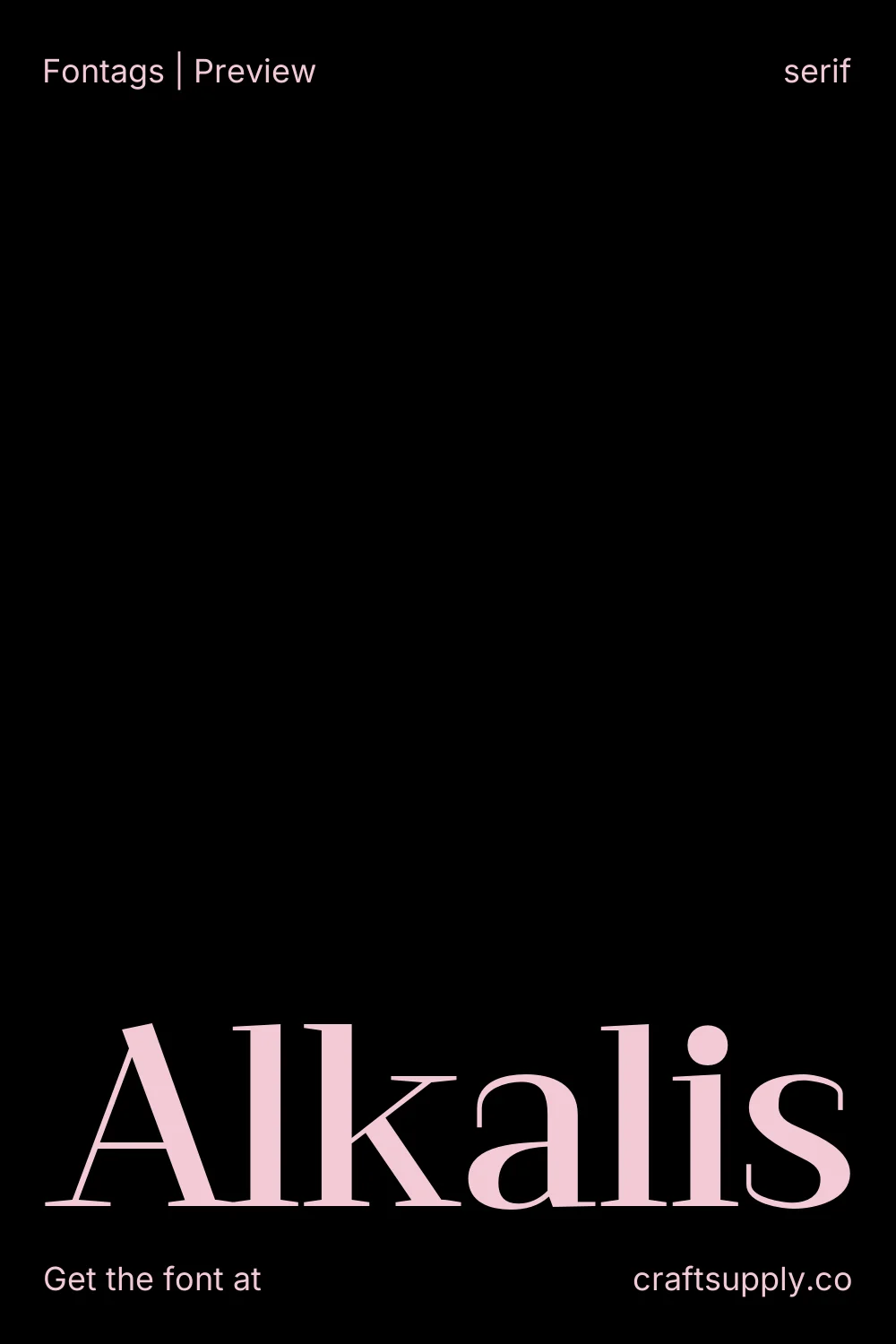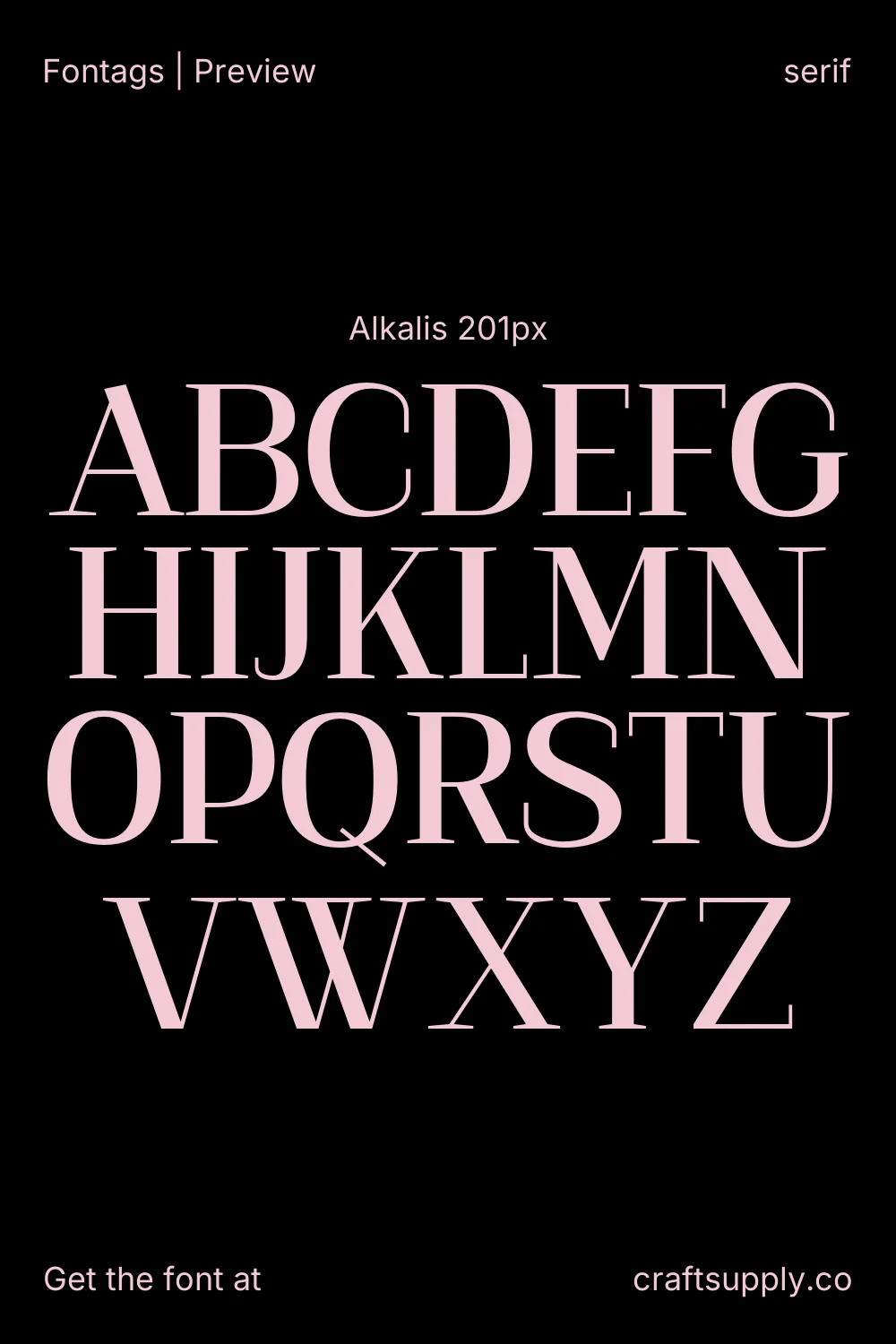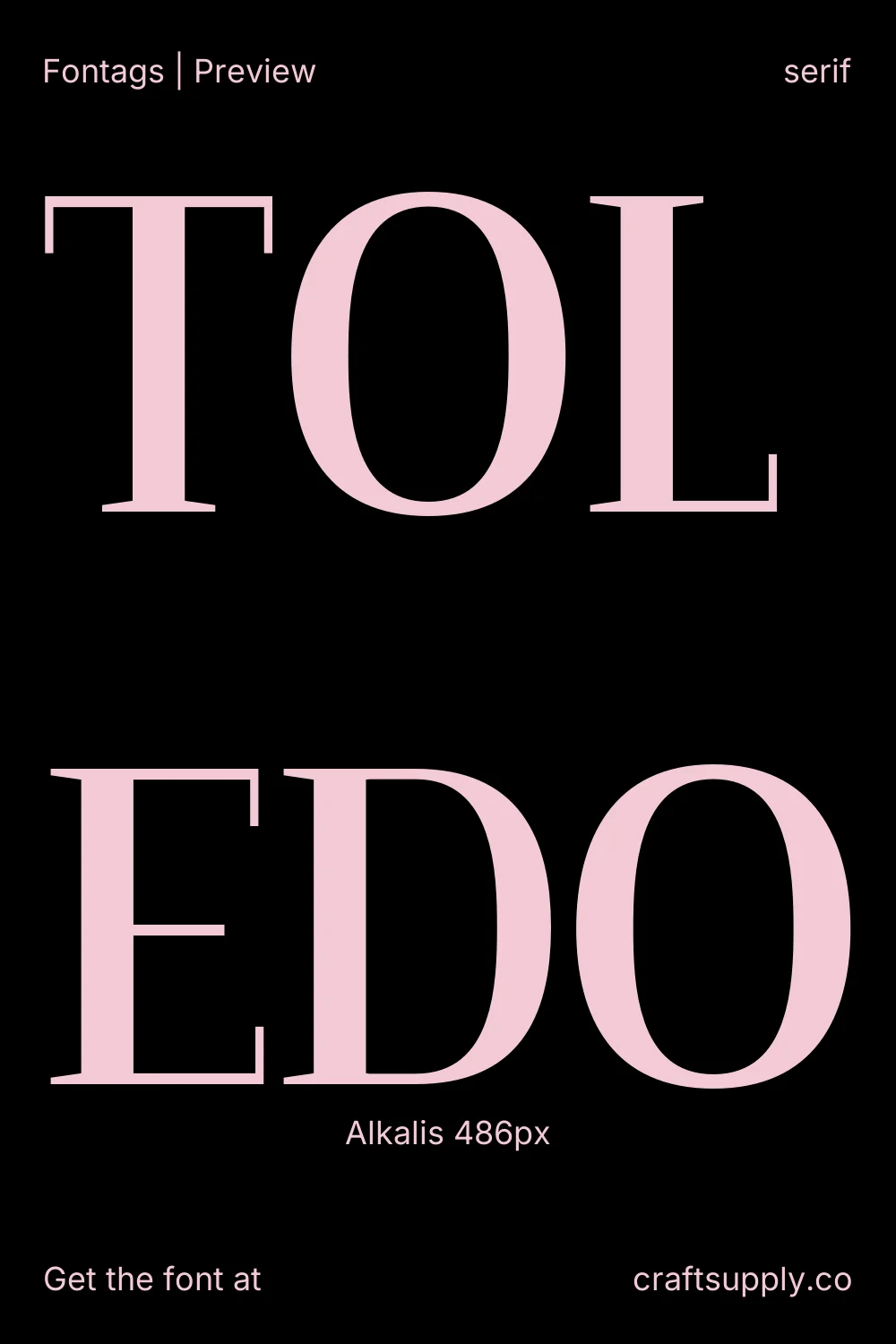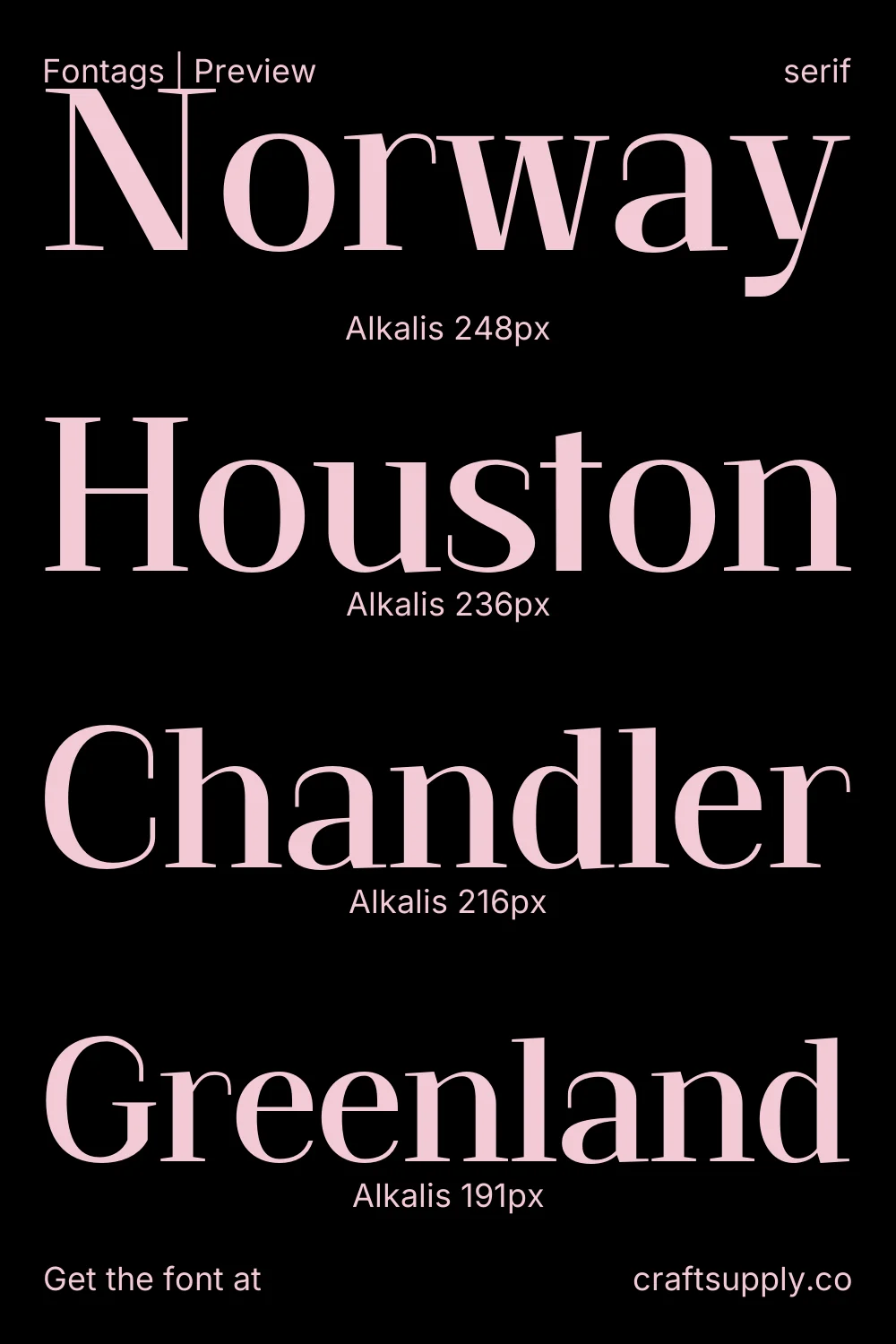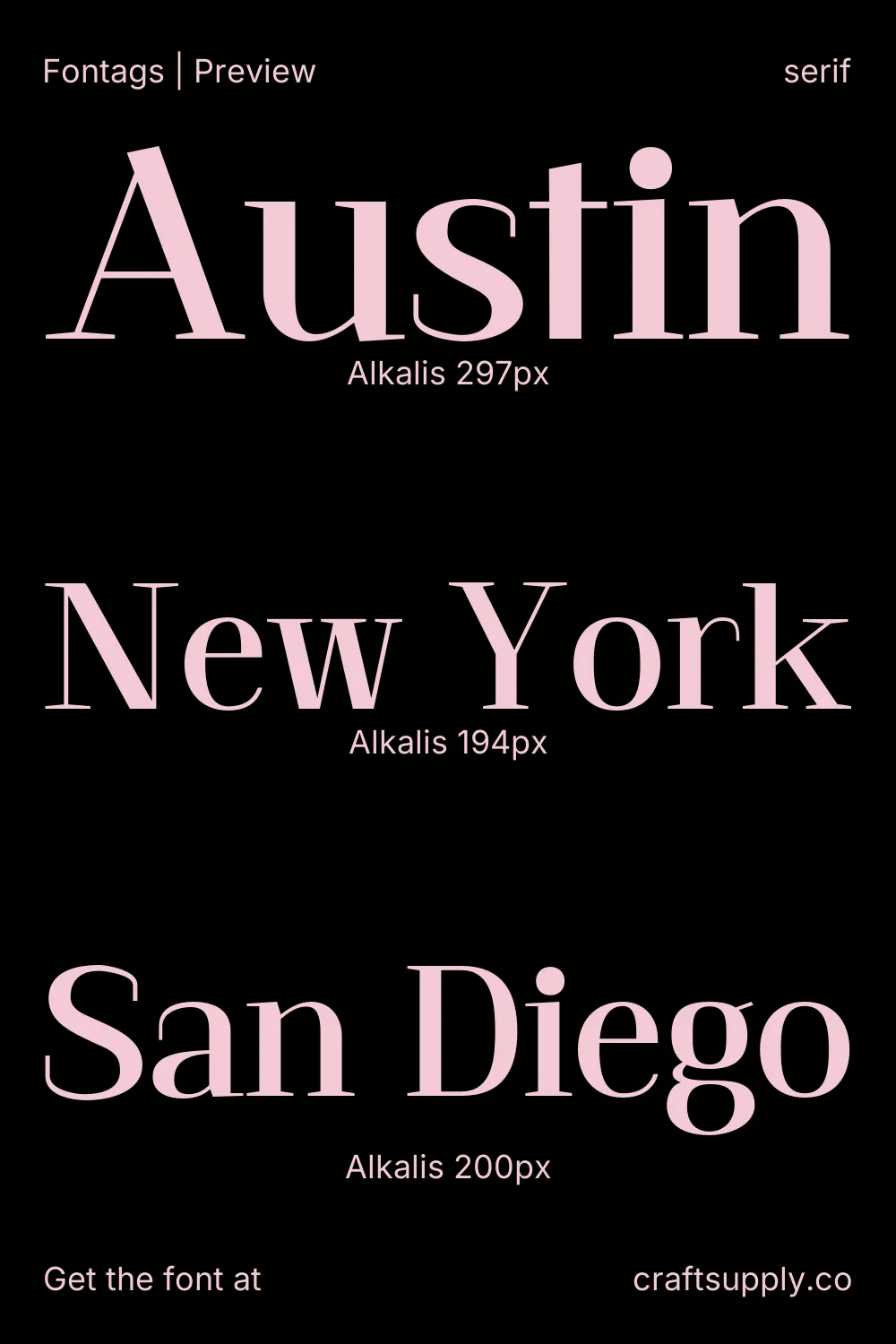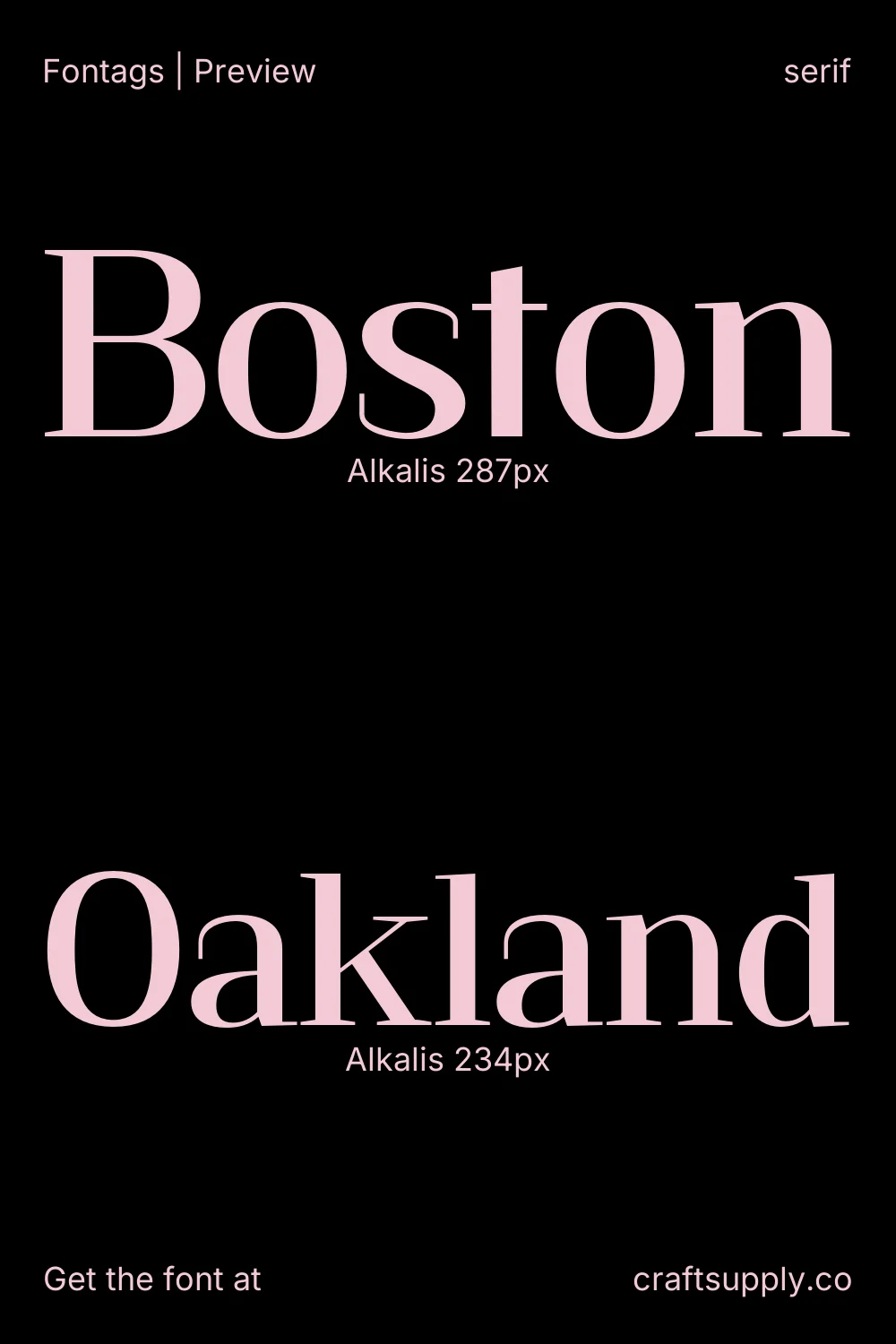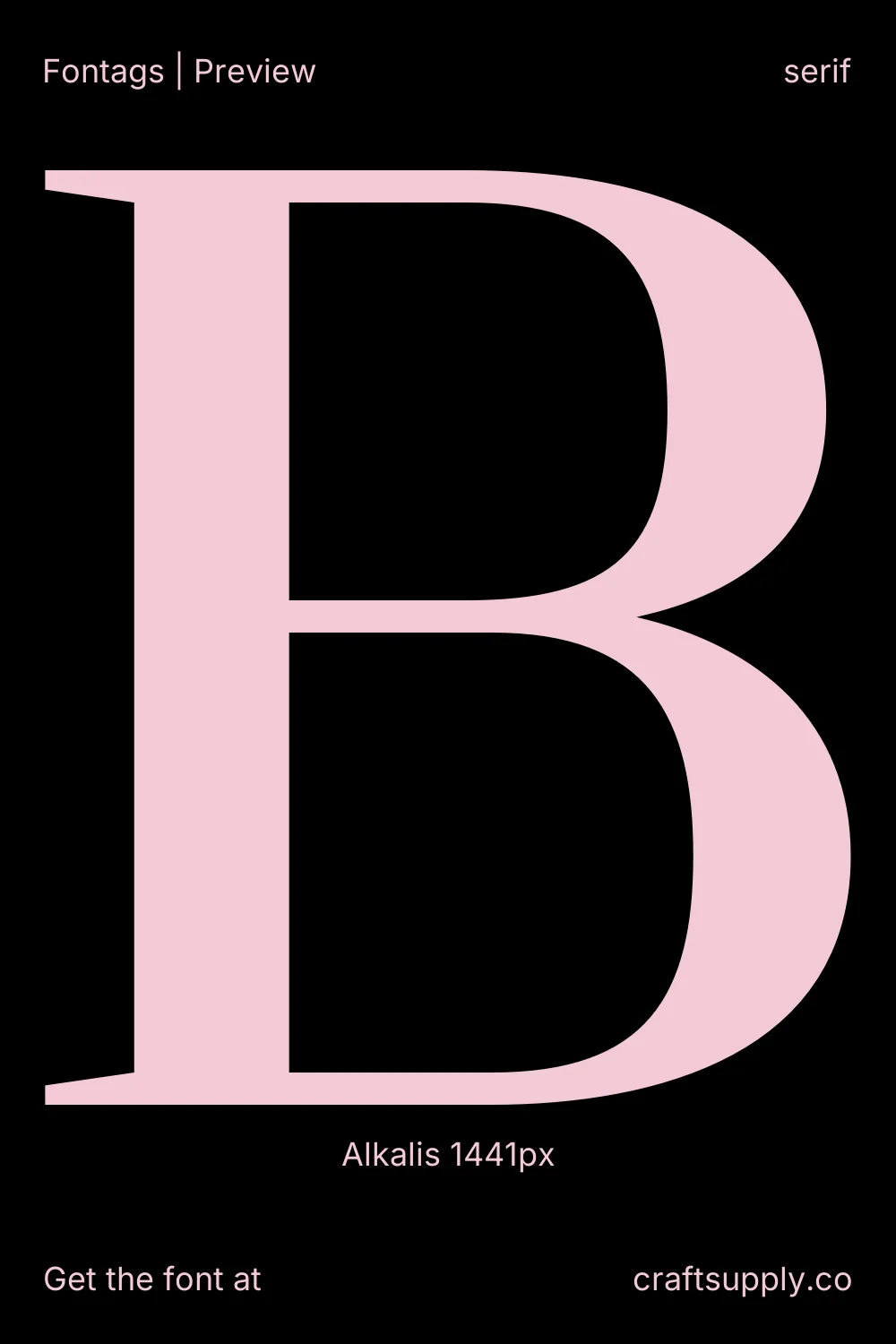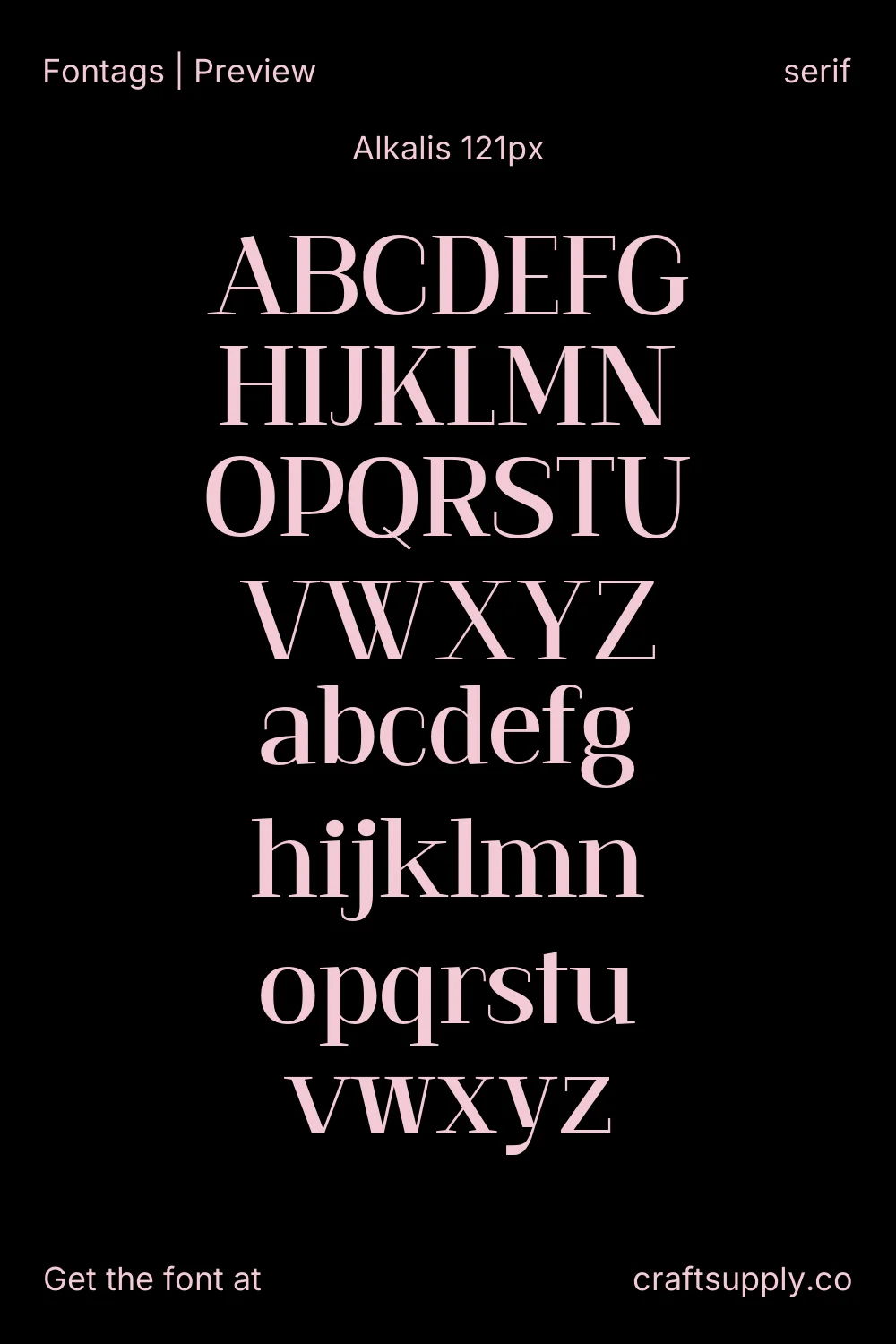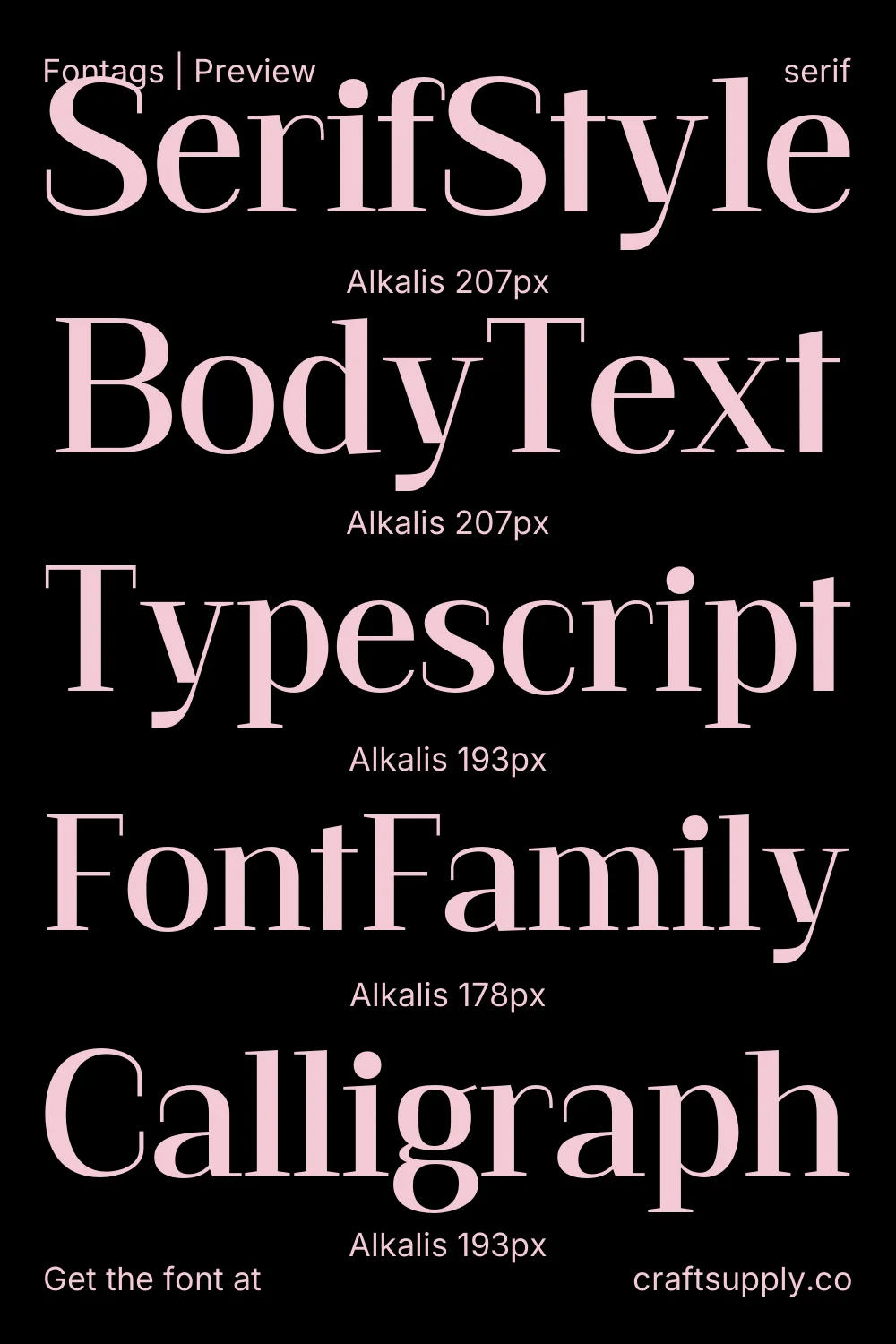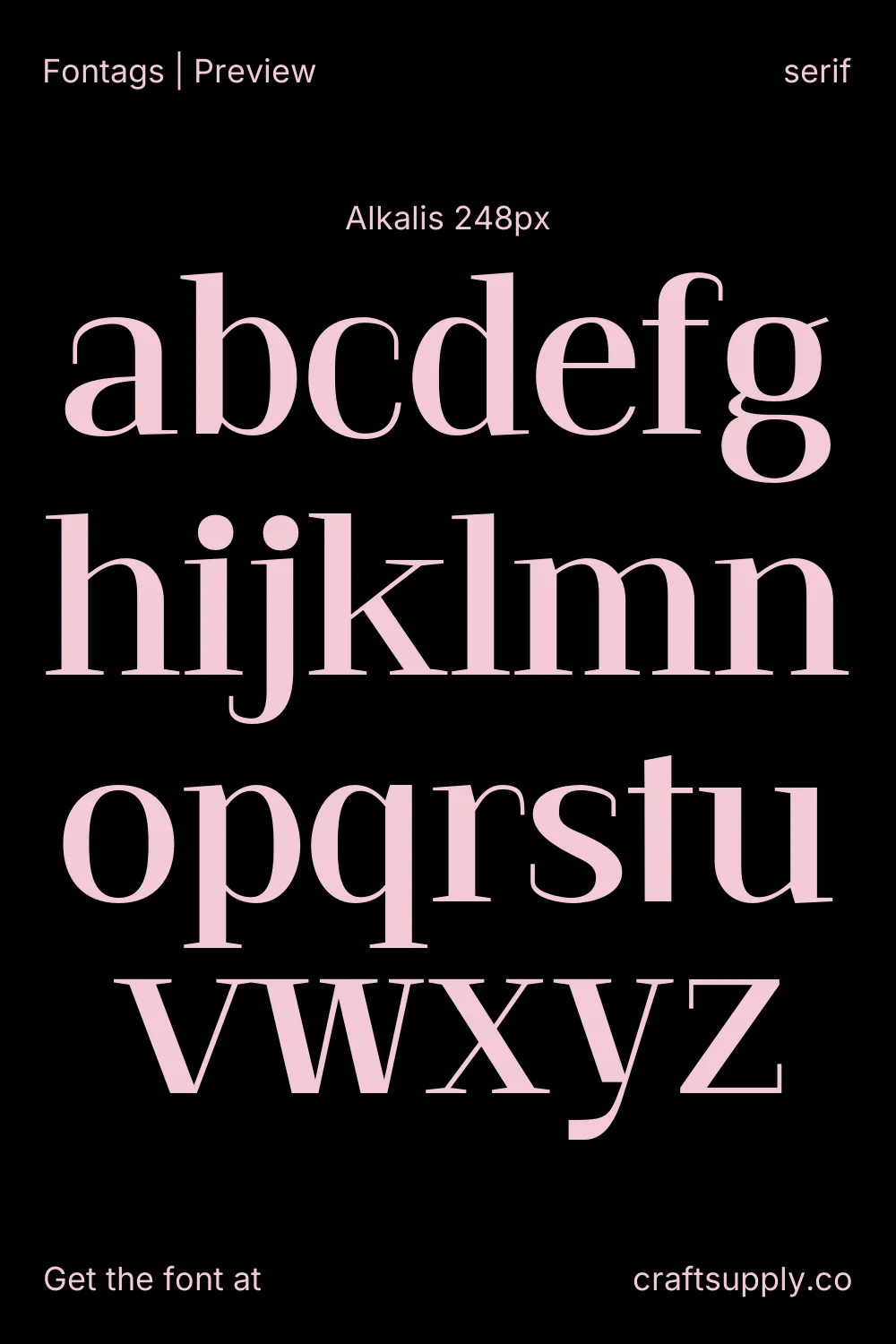
Alkalis
Alkalis is a modern elegant serif that balances classic sophistication with contemporary versatility. Its well-judged contrast makes it suitable for both body text and display headings, transitioning smoothly from print to digital. This typeface adds a refined touch to editorial designs, branding, and long-form reading.